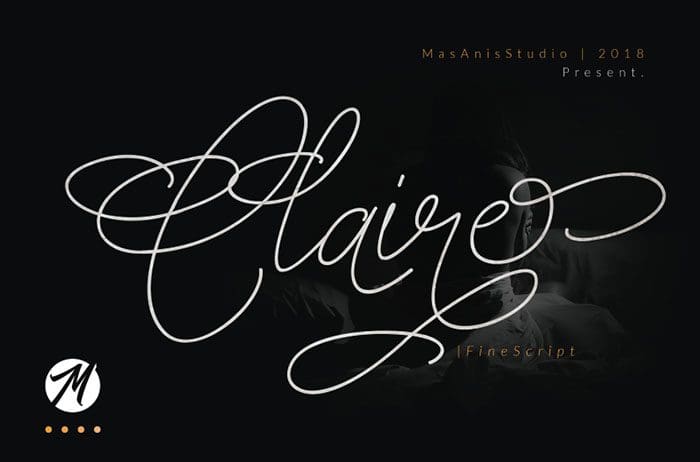
Free Claire Script Font
Claire Script Font
Free Claire Script font is the perfect font for those who are in need of a touch of elegance. If you look the combination of a elegant and modern look, this is the perfect font for you. Designed this font by Mas Anis. You can also search more freeĀ Script Fonts.